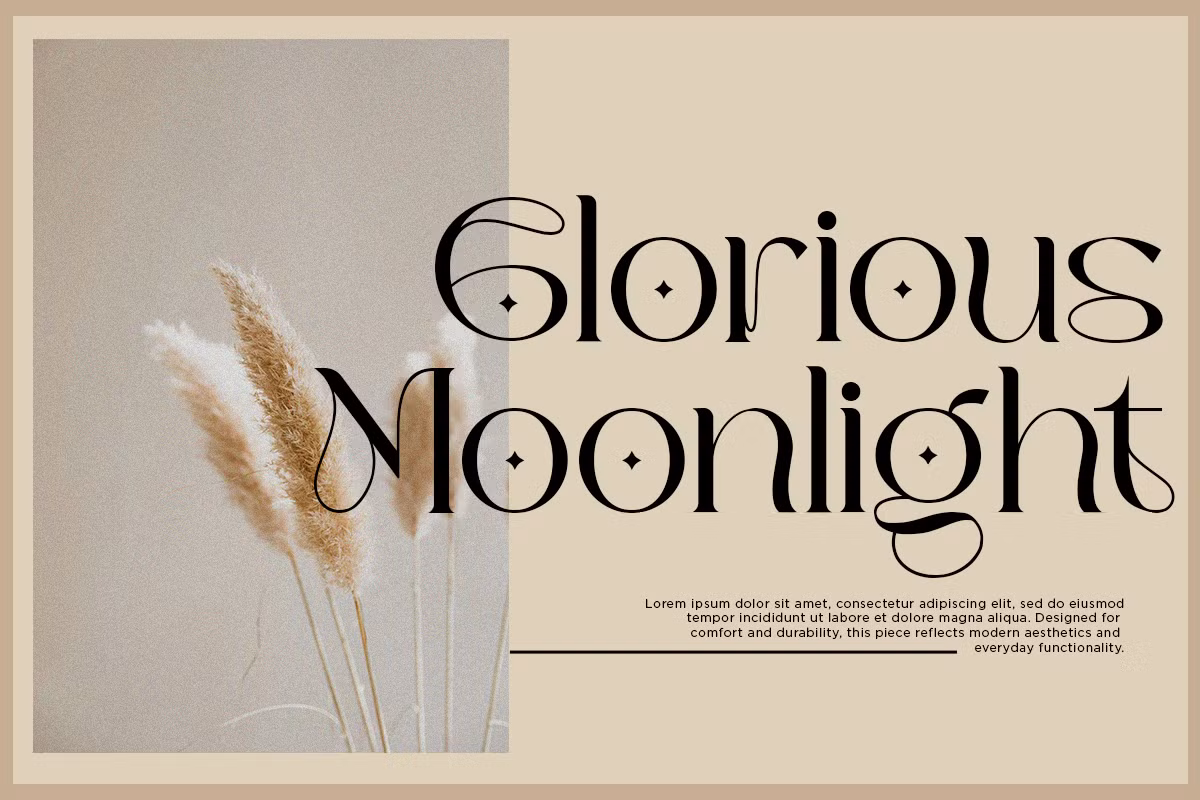
Zavera: Luxurious Serif Typeface for Elegant Design Projects
Zavera - Elegant Serif Font
Zavera: Luxurious Serif Typeface for Elegant Design Projects
Introduction to Zavera
Zavera is a beautiful serif font that adds a touch of classic style to your designs. Its smooth curves and balanced look make it perfect for creating a high-end feel. You can use Zavera for lots of different projects, like fashion brands, wedding designs, magazine layouts, logos, and packaging. It’s a great way to give your work a modern and sophisticated look. With its lovely ligatures and elegant lines, Zavera can make any design project look more luxurious and refined. Whether you’re working on a fashion brand or a wedding invitation, Zavera is a great choice to add a touch of timeless beauty to your work. It’s a versatile font that can be used in many different ways, and it’s sure to give your designs a classy and modern feel.
Elegant serif typeface example
An example of Zavera’s elegant lettering.
Design Style of Zavera
Zavera’s design is all about elegance and attention to detail. Its serif forms are really beautiful and the curves of each letter make it look sophisticated. What’s great about Zavera is that it’s easy to read, even though it’s also decorative. The way the thick and thin lines balance each other out makes it clear and nice to look at. And then there are the ligatures – they’re like the icing on the cake, adding a touch of artistry to the typography and making it flow nicely. Overall, Zavera is a great choice when you want your text to look classy and refined.
Characteristics
• Serif Structure: The distinctive serifs of Zavera add a touch of traditional elegance, making it suitable for high-end design projects.
• Ligatures: Zavera boasts a range of ligatures that enhance its aesthetic appeal and allow for seamless connections between letters.
• Versatility: This typeface works wonderfully in both large display formats and smaller text compositions, making it adaptable for various uses.
Ligatures and typography examples
Ligatures enhance the typography of Zavera.
Character Sets and Options
Zavera comes equipped with a comprehensive set of characters that cater to a wide range of typographic needs. It includes uppercase and lowercase letters, as well as alternates and ligatures that provide designers with creative flexibility.
Multilingual Support
Zavera really stands out when it comes to supporting multiple languages. This is a huge plus for projects that involve people from all around the world. Designers can use it to connect with different groups of people, no matter what language they speak. So, if you’re making ads for a big company that operates globally, or just invitations for a wedding with guests from many cultures, Zavera can handle all the different languages and writing systems you need. It’s really versatile and can be used in lots of situations where you have to communicate with people who speak different languages. This makes it a great tool for anyone working on international projects, as it helps break down language barriers and makes sure your message gets across clearly.
Zavera typeface in use
Zavera typeface showcased in various applications.
Use Cases for Zavera
The versatility of Zavera makes it suitable for a variety of design applications. Here are some compelling use cases:
Fashion Branding
In the fashion industry, where aesthetics are paramount, Zavera provides an elegant touch that can help brands stand out. Whether it’s for a logo, promotional materials, or a website, this typeface conveys luxury and style.
Wedding Designs
Zavera’s refined character is perfect for wedding invitations, save-the-date cards, and other related stationery. Its classy appearance sets the tone for a sophisticated celebration.
Editorial Layouts
Zavera is a great font for magazines and printed materials because it’s easy to read and looks nice. It works well for headlines, body text, and captions, which helps create a consistent and visually appealing design. This makes it a good choice for editorial layouts, where you want everything to look good together.
Logos and Branding
The distinctive nature of Zavera can enhance any logo design. Its luxurious feel allows brands to communicate their identity effectively, making it a favored choice among designers.
Packaging Design
In packaging design, Zavera can add a touch of sophistication that attracts consumers. Whether it’s for premium products or artisanal goods, this typeface helps convey quality and craftsmanship.
Zavera in packaging design example
Zavera enhances packaging design with sophistication.
Pairing Suggestions for Zavera
When considering how to pair Zavera with other typefaces, look for complementary fonts that maintain its elegance while providing contrast. This can enhance the overall design without overshadowing the luxurious quality of Zavera.